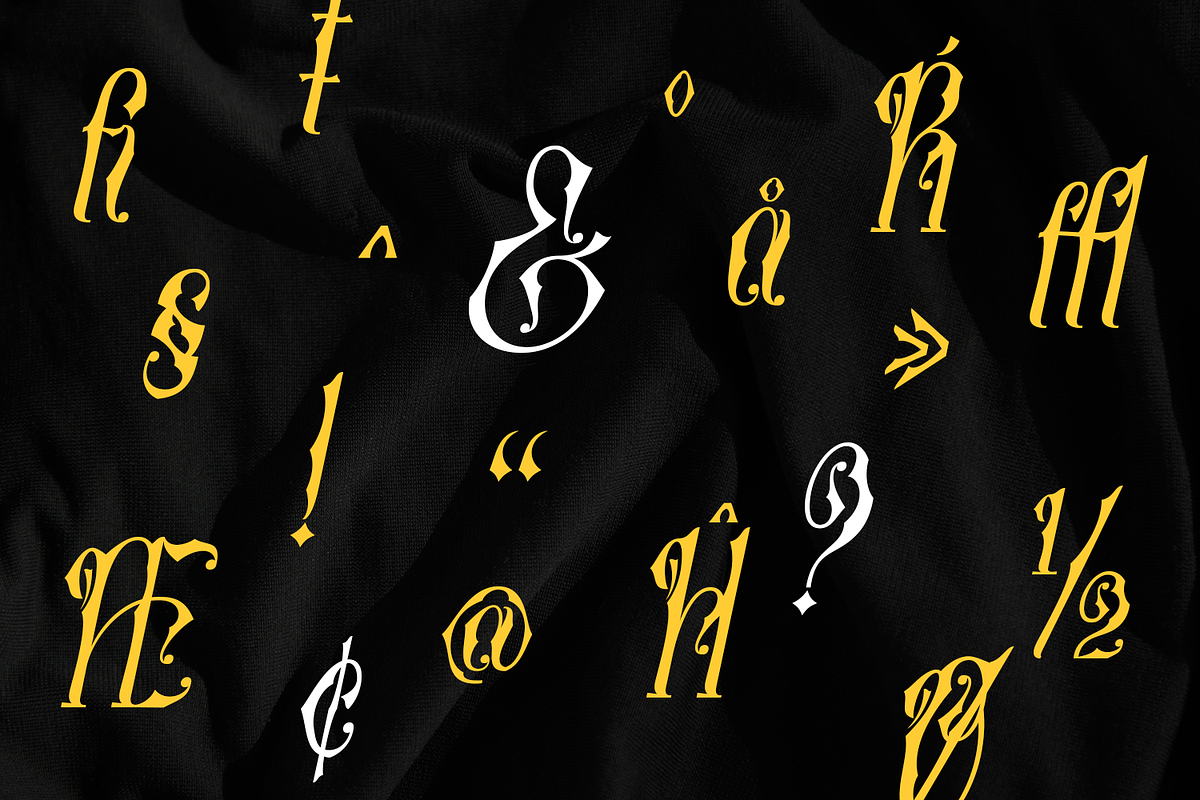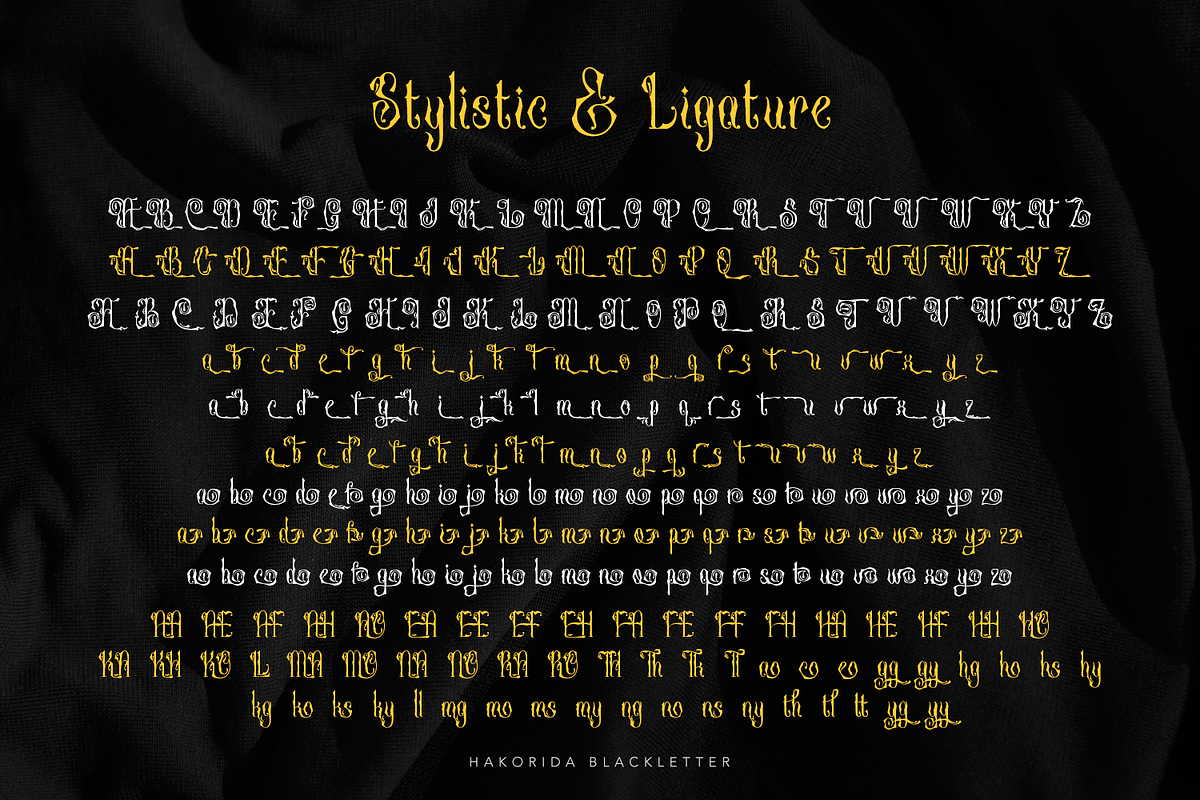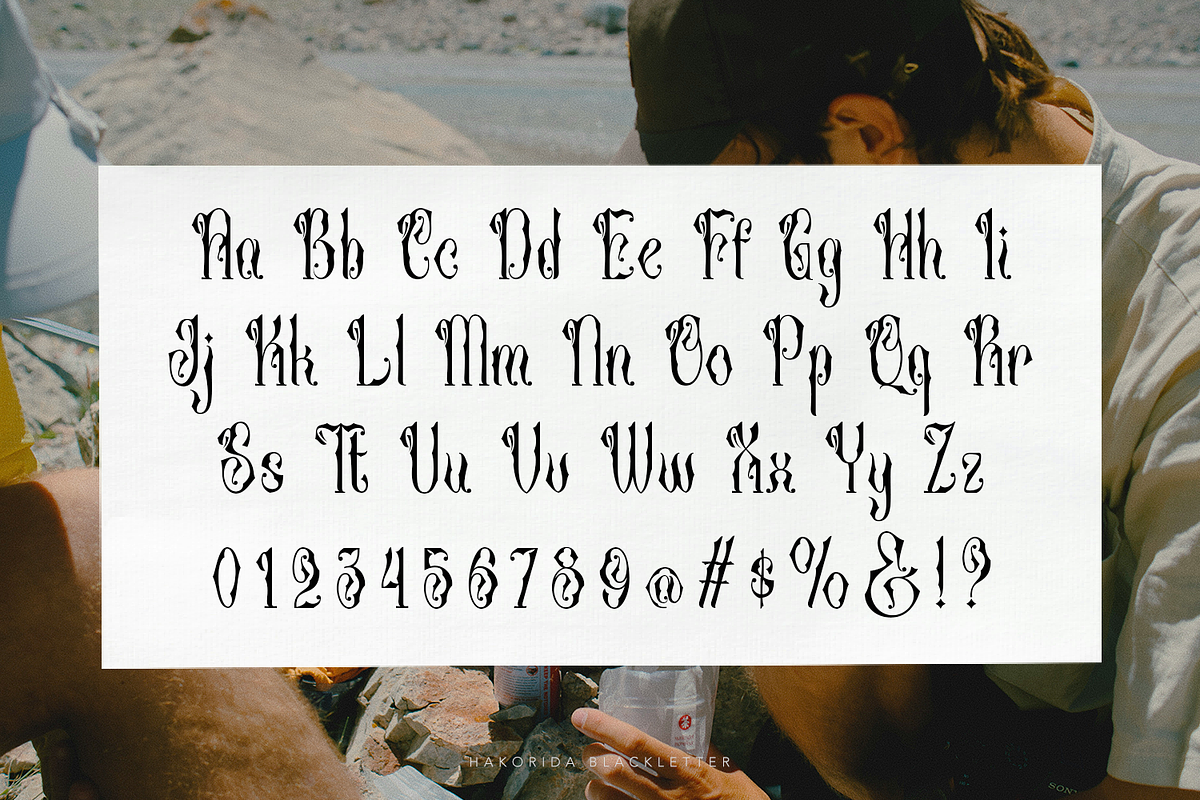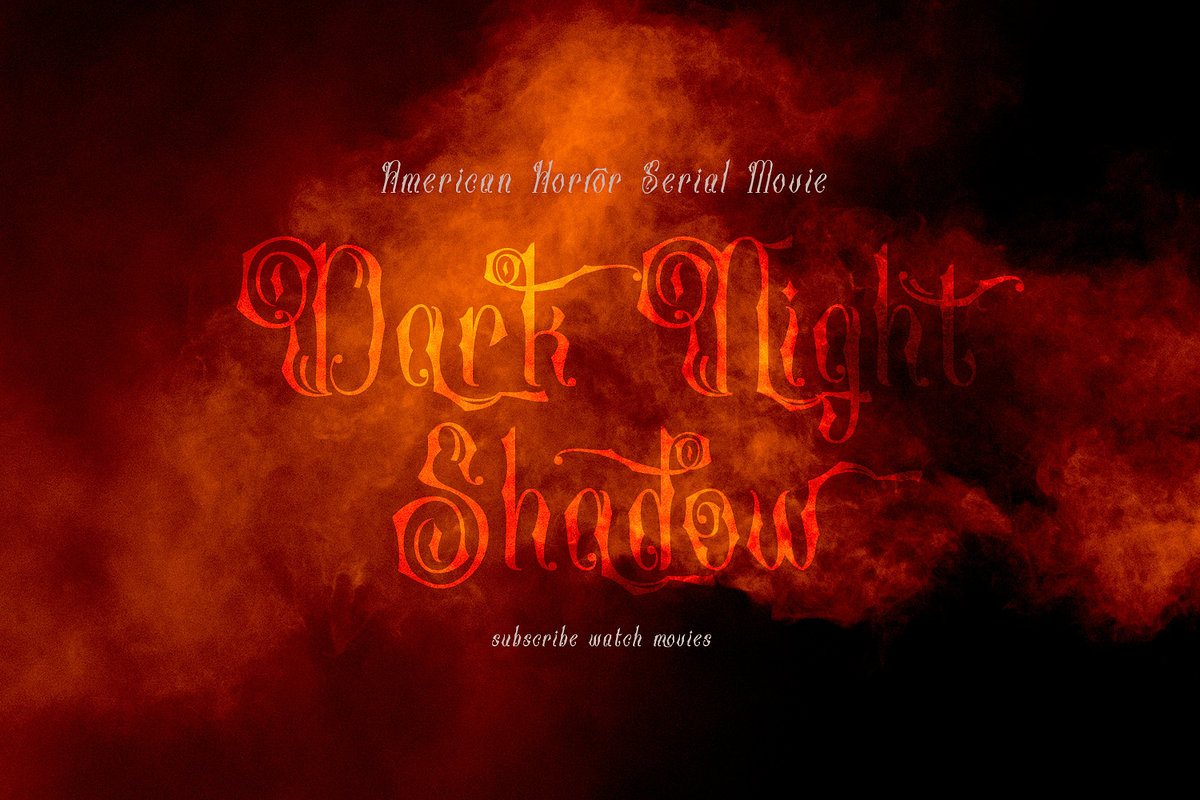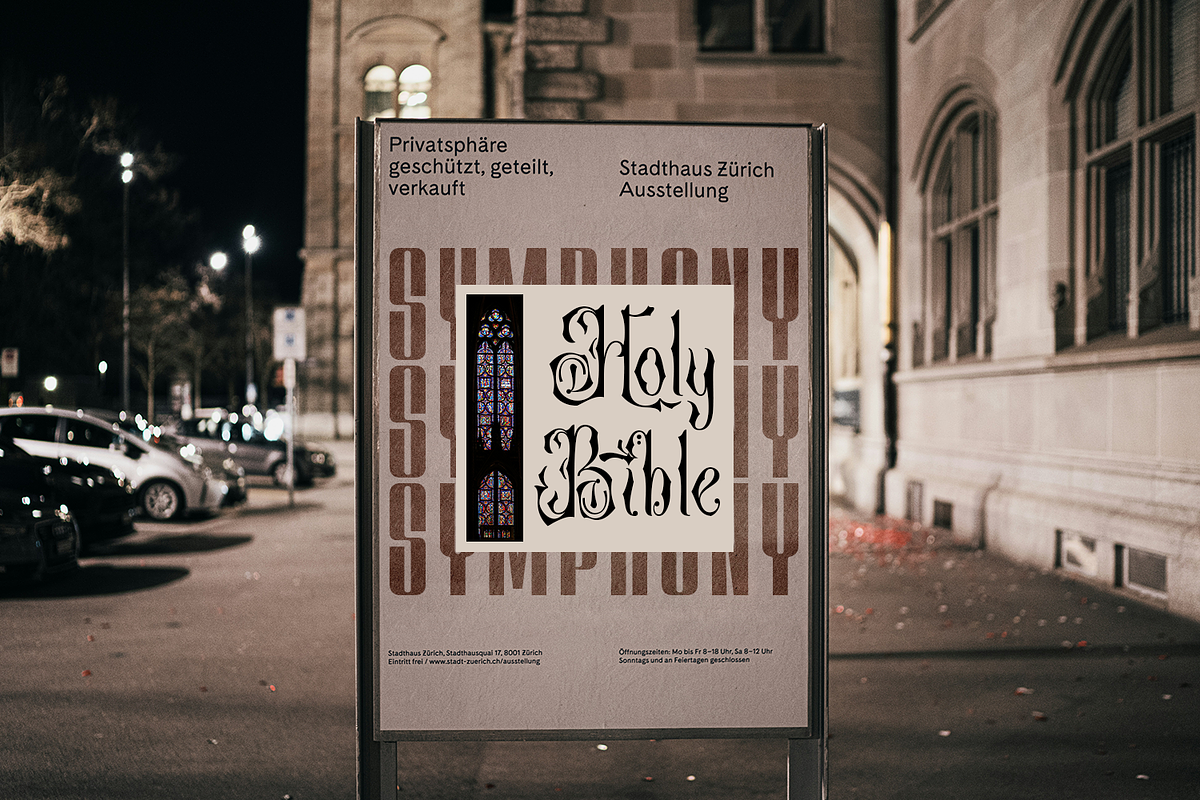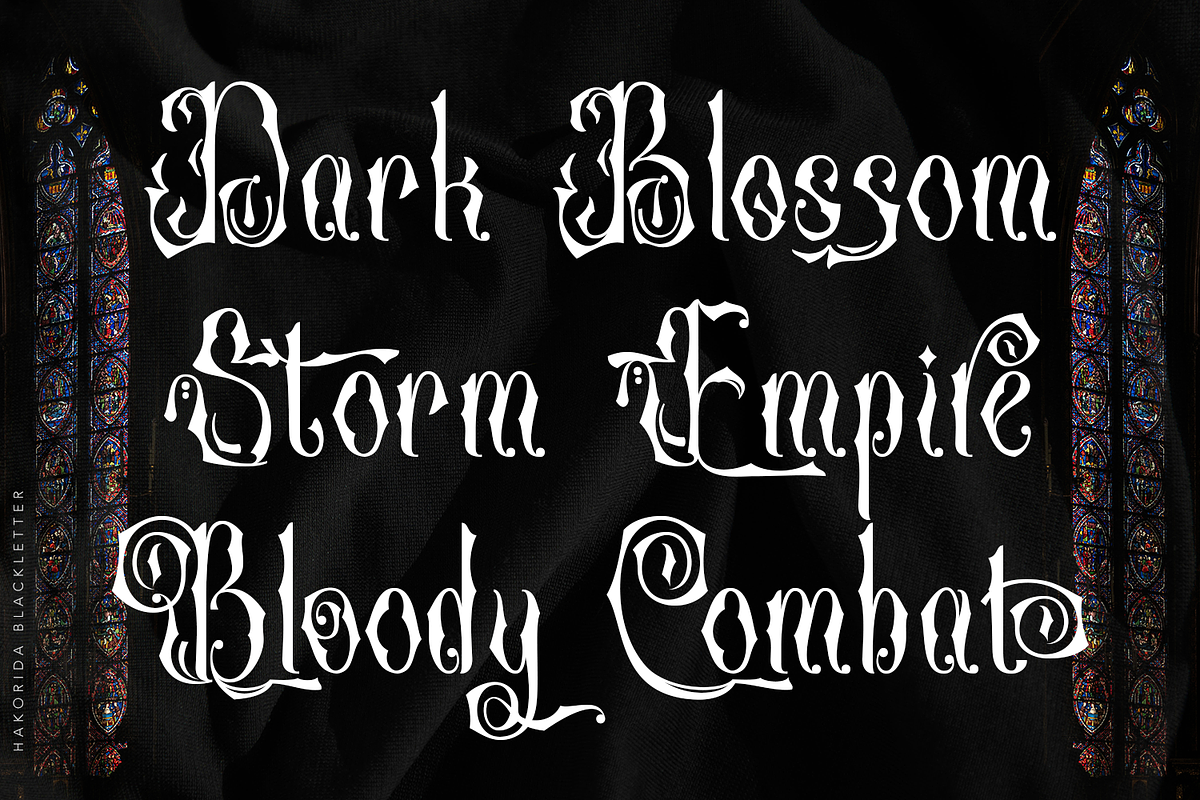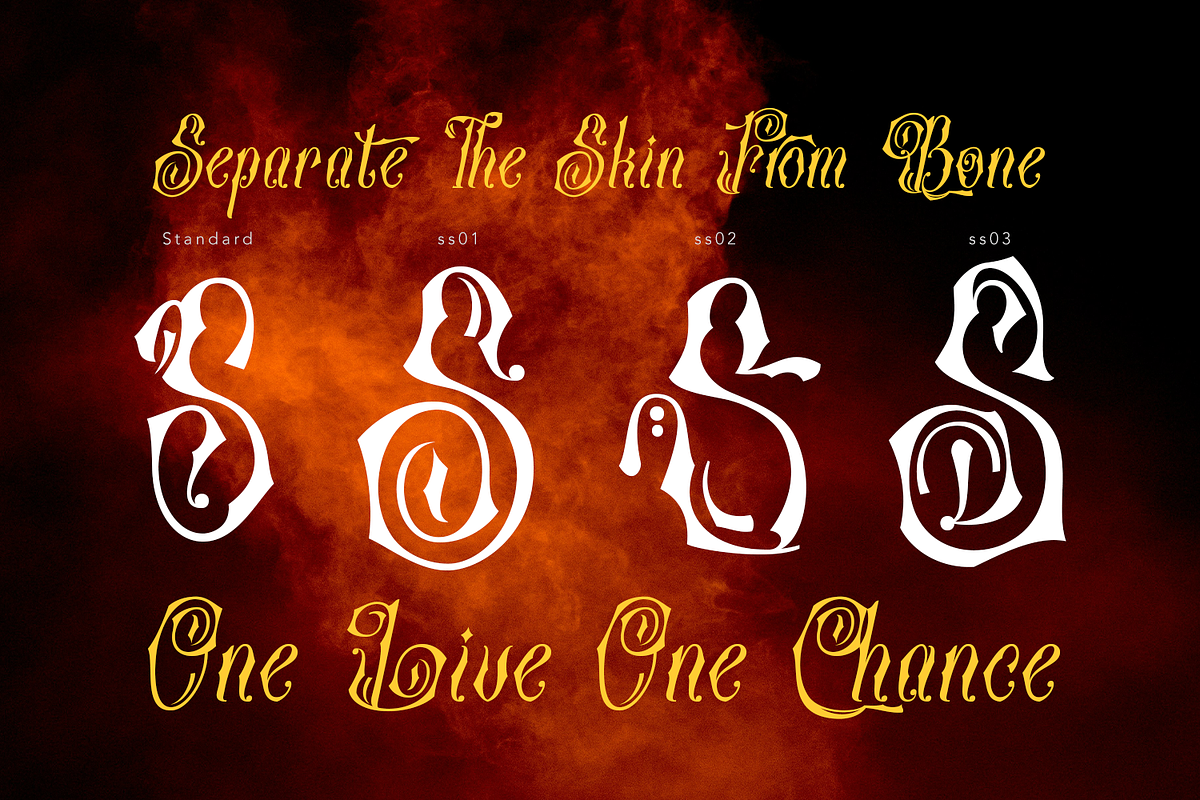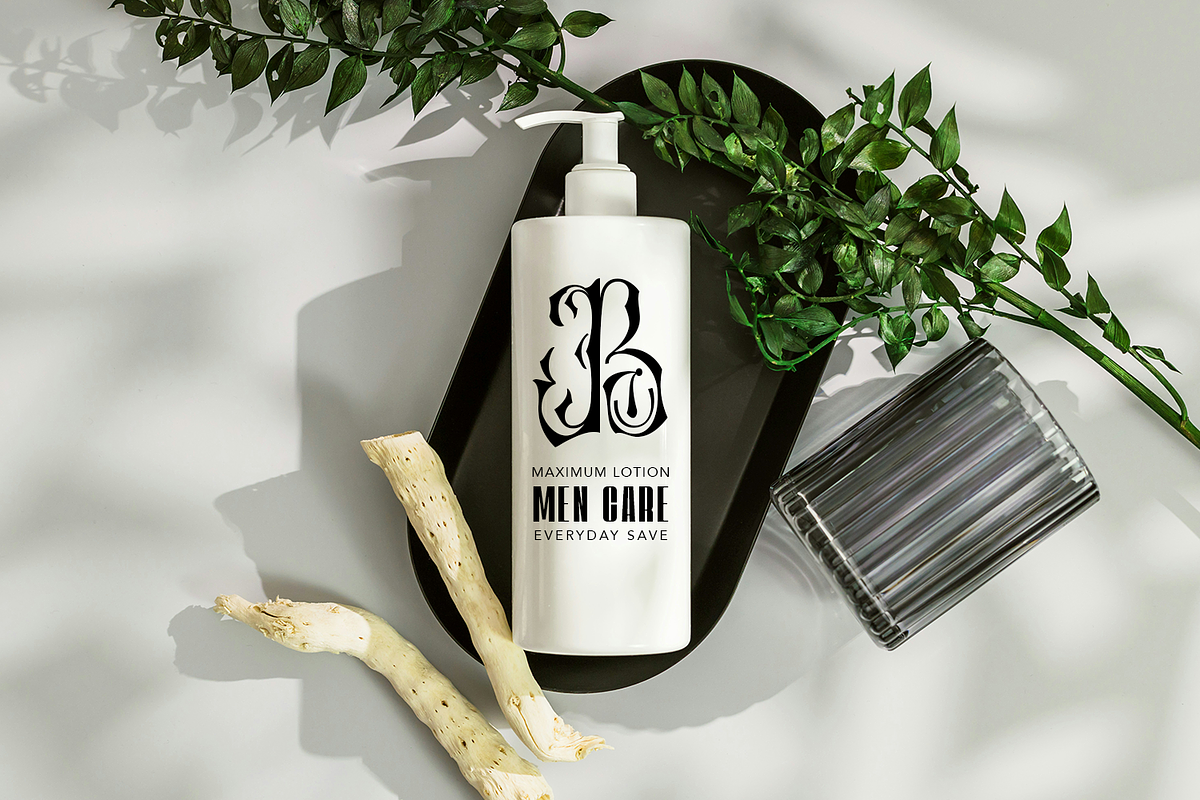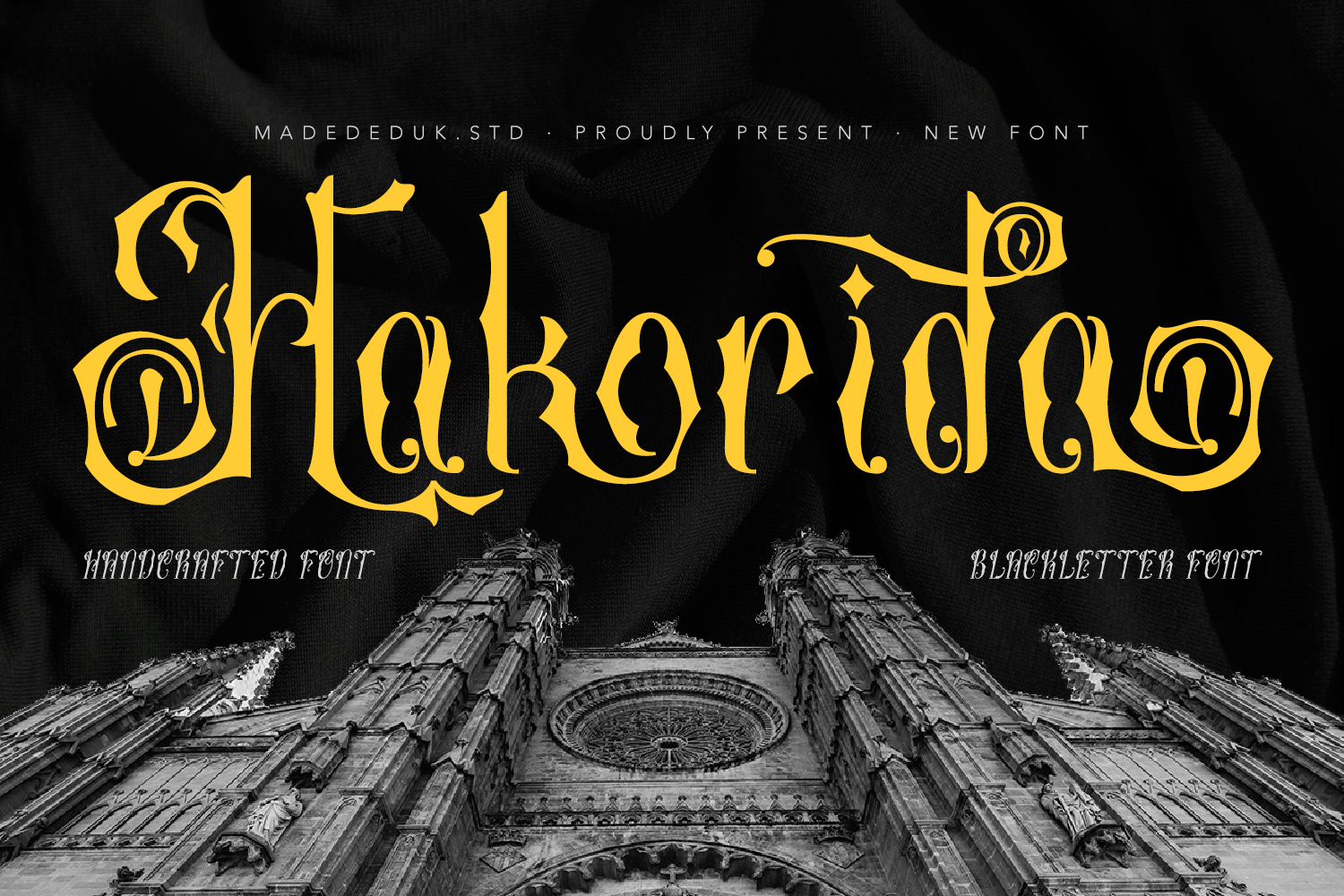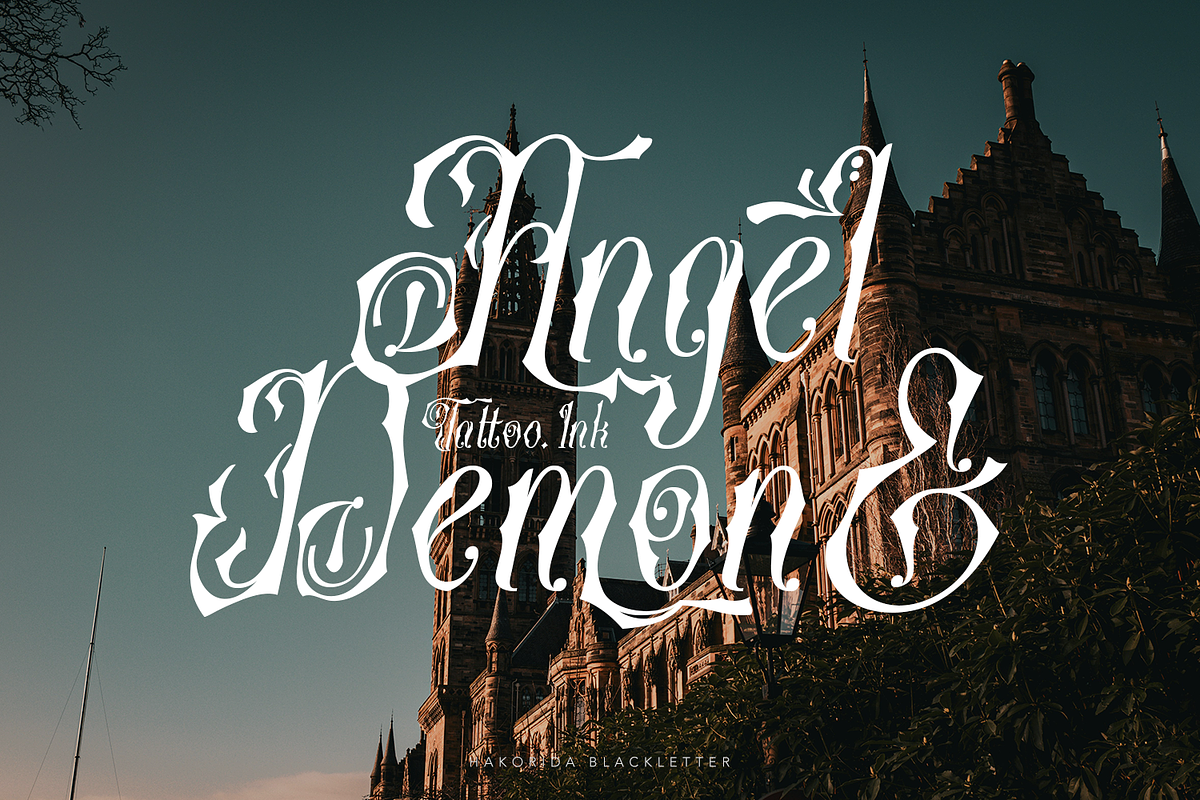
Hakorida - Blackletter Font
Introducing Hakorida, this font features a Blackletter, classic, and Gothic style, characterized by distinctive letterforms and intricate, curved details. Each character incorporates ornaments such as sweeping curves, sharp points, and decorative elements that evoke an artistic, elegant, and slightly mysterious atmosphere. Its distinctive shape gives the font a striking and instantly recognizable appearance.
It is well suited for headlines, logos, book covers, posters, packaging, menus, and invitations that require a unique, character rich aesthetic. When used at larger sizes, the ornamental details become more prominent, allowing the font to serve as a focal point in a design while conveying a sense of exclusivity.
Number & Symbol
International Glyphs
Alternative
Ligature